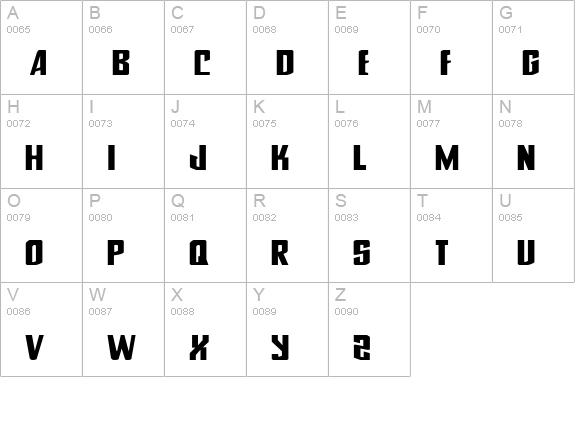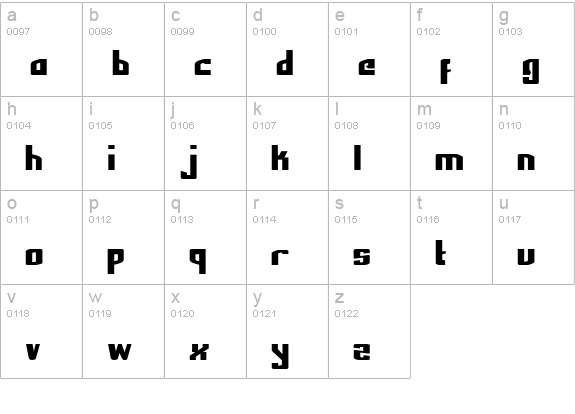
National Express Font Details
National Express is a stylish and modern font that exudes sophistication and elegance. This versatile typeface is perfect for a wide range of design projects, from branding to editorial design. With its clean lines and sharp edges, National Express commands attention and adds a touch of professionalism to any layout. What sets National Express apart is not only its sleek design, but also the fact that it is available for free download at FontsMarket.com. This means that you can easily access and use this high-quality font without any cost, making it a valuable asset for designers and creatives looking to elevate their work without breaking the bank. Whether you're working on a corporate identity, a poster design, or a website layout, National Express is sure to make a bold statement and leave a lasting impression. Download it today and add a touch of sophistication to your next project.